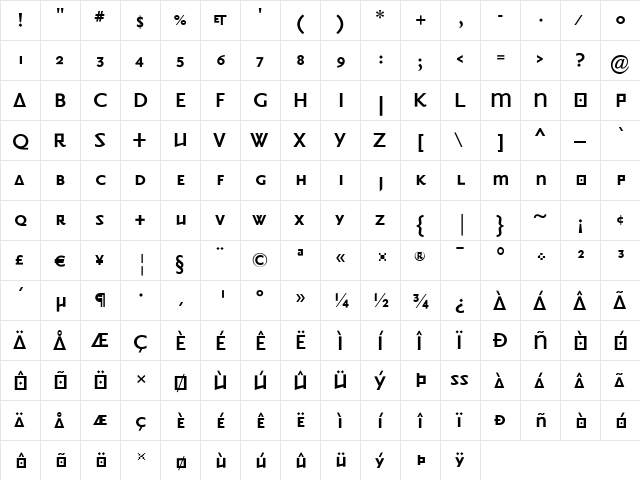
Priori Sans Bold
Design Context for Priori Sans Typeface
Priori Sans is a composed and adaptable typeface that performs quietly and consistently across a wide range of design contexts. The heavy weight commands attention and anchors typographic hierarchies.